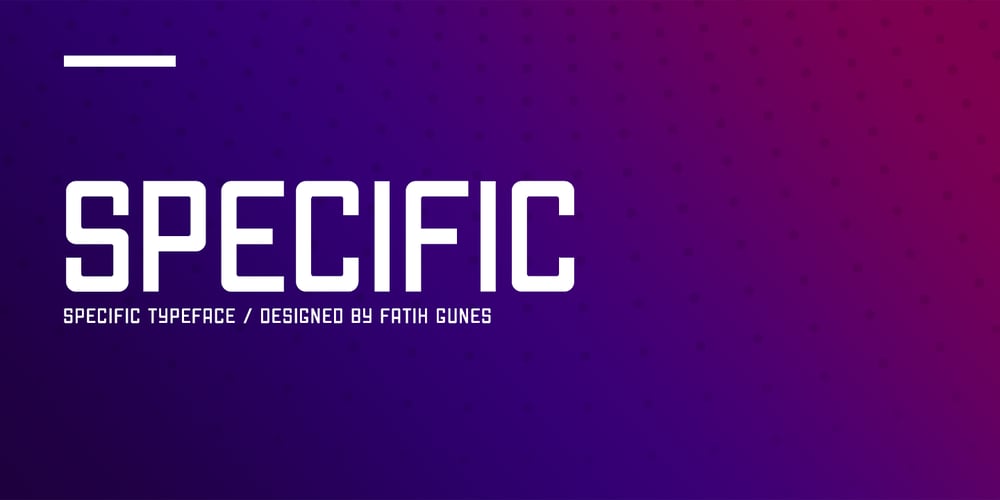
Specific
Specific font
Specific Font Family was designed by Fatih Güneş and published by Fatih Güneş. Specific contains 1 styles and family package options. It has a higher uppercase structure than the normal ones. It has a condensed, rounded and squared character. It is a typeface which you can use in posters, packagings, newspaper & magazine ads, logos, banners, promo images & soccer uniforms.